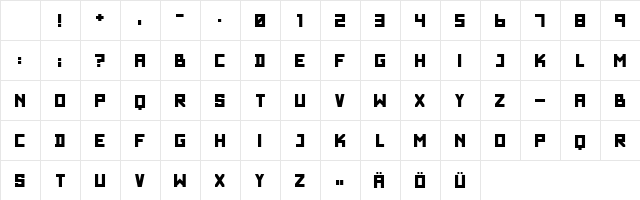
Complete SF WADIM GIANT Heavy glyph index. Displaying only characters natively supported by SF WADIM GIANT Heavy font.
SF WADIM GIANT is a composed and adaptable typeface that performs quietly and consistently across a wide range of design contexts.